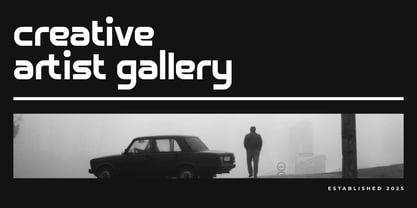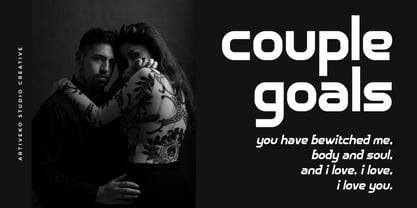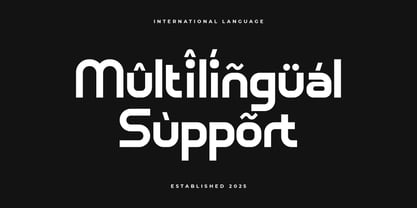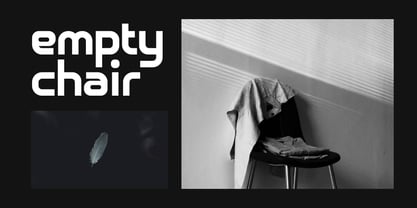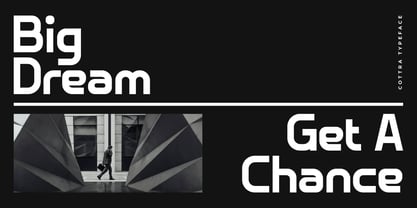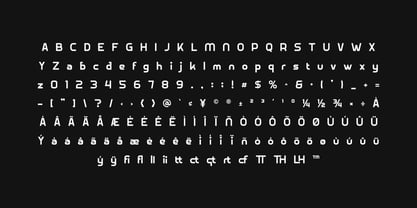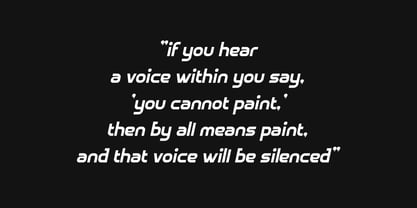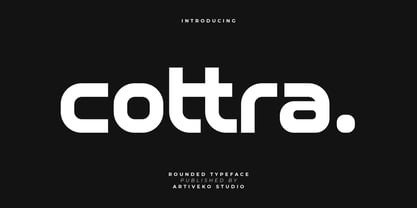
Cottra
by Artiveko
The Cottra Font Family was designed by Iwan Alwan and published by Artiveko. Cottra contains 2 styles and family package options. More about this family
Cottra is a fresh and expressive sans serif font designed for creators who want a clean, stylish, and contemporary look. With its balanced proportions, subtle geometric influence, and slightly playful details, Cottra brings a modern creative energy to branding, packaging, social media, posters, editorials, and digital interfaces. Its smooth curves and crisp lines deliver excellent readability while still offering a distinctive personality that stands out in professional design work. Cottra is versatile enough for bold headlines, logo design, UI typography, and minimalistic layouts—making it a reliable choice for both creative and commercial projects. The font includes uppercase and lowercase characters, numerals, punctuation, multilingual support, and selected stylistic alternates to give designers more flexibility and expressive options. Elevate your visual identity with Cottra, a creative sans serif typeface crafted to combine clarity, style, and a modern design spirit.
Designers: Iwan Alwan
Foundry: Artiveko
Artiveko is a font design team based in Indonesia, comprised of several talented font designers who commenced their careers in the font design industry in 2020. With a dedicated focus on crafting fonts, the team members bring their collective expertise and passion to every project they undertake. Situated in Indonesia, Artiveko draws inspiration from the vibrant cultural landscape of the region, infusing their creations with unique flavors and aesthetics.The team's font collection encompasses a diverse range of styles, including serif, sans serif, handwritten, and script typefaces. Each typeface is meticulously crafted to meet the demands of modern design while offering versatility and functionality across various applications. Whether it's the classic elegance of serif fonts, the contemporary appeal of sans serif designs, the personal touch of handwritten scripts, or the expressive flourishes of script fonts, Artiveko ensures that every font reflects their dedication to quality and innovation.Artiveko's fonts have garnered recognition and acclaim, with their works being featured on prominent social media platforms like Creative Market. Through these platforms, the team has been able to connect with a global audience of designers and typographers, further amplifying their reach and influence in the industry. Their fonts are celebrated for their impeccable craftsmanship, attention to detail, and ability to elevate design projects with style and sophistication.As Artiveko continues to evolve and expand its font collection, the team remains committed to pushing the boundaries of typography and setting new standards of excellence. With a relentless focus on creativity, innovation, and collaboration, Artiveko strives to inspire and empower designers around the world with their distinctive and versatile font designs.